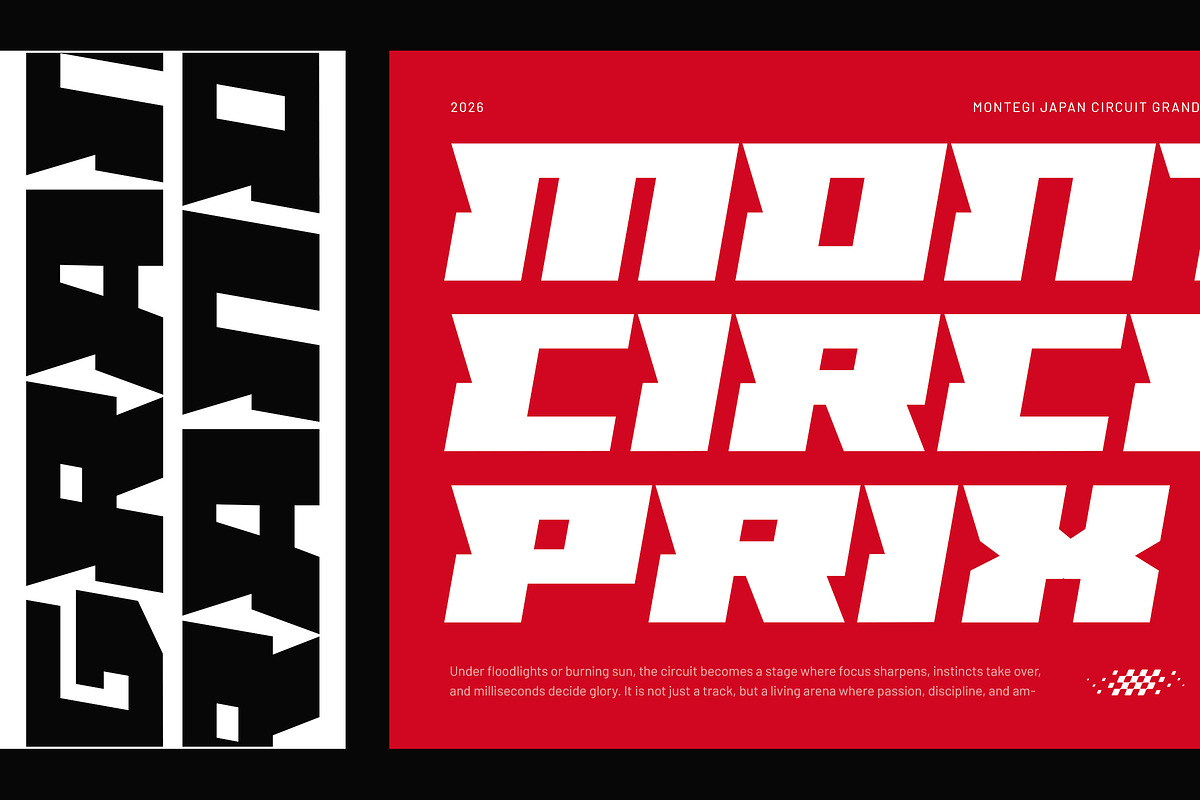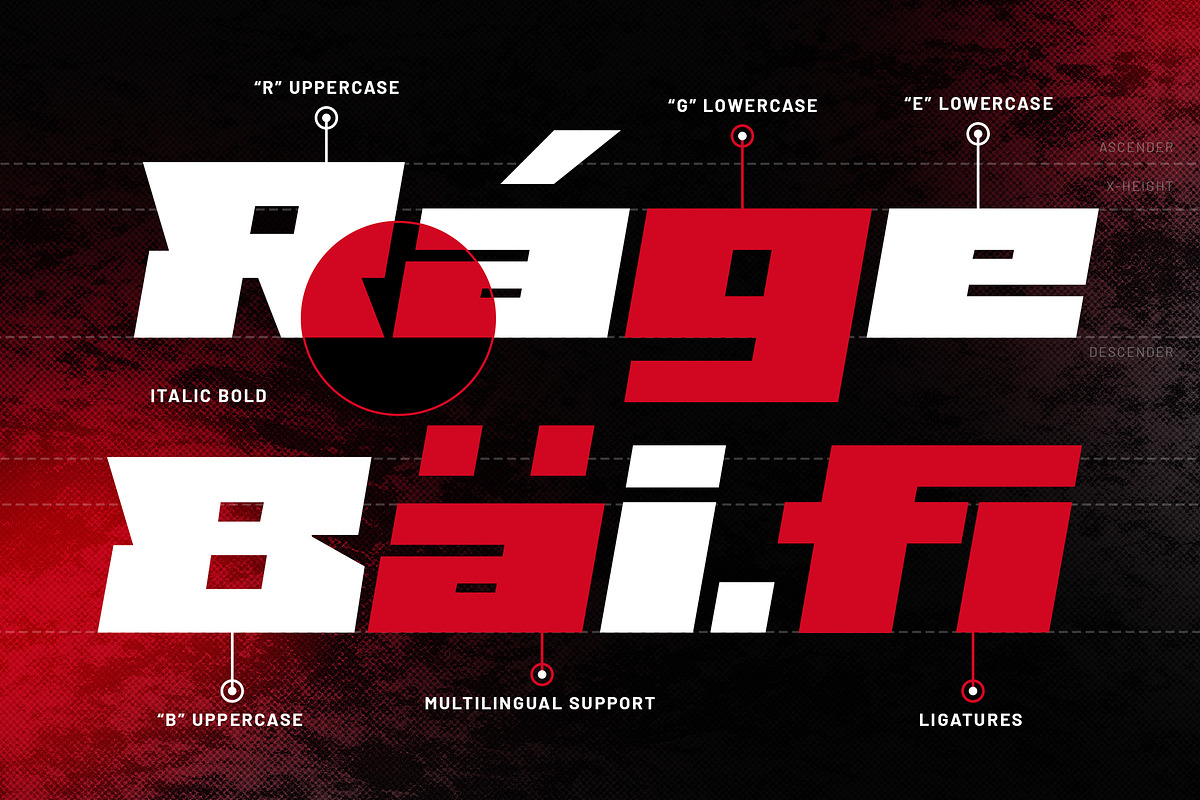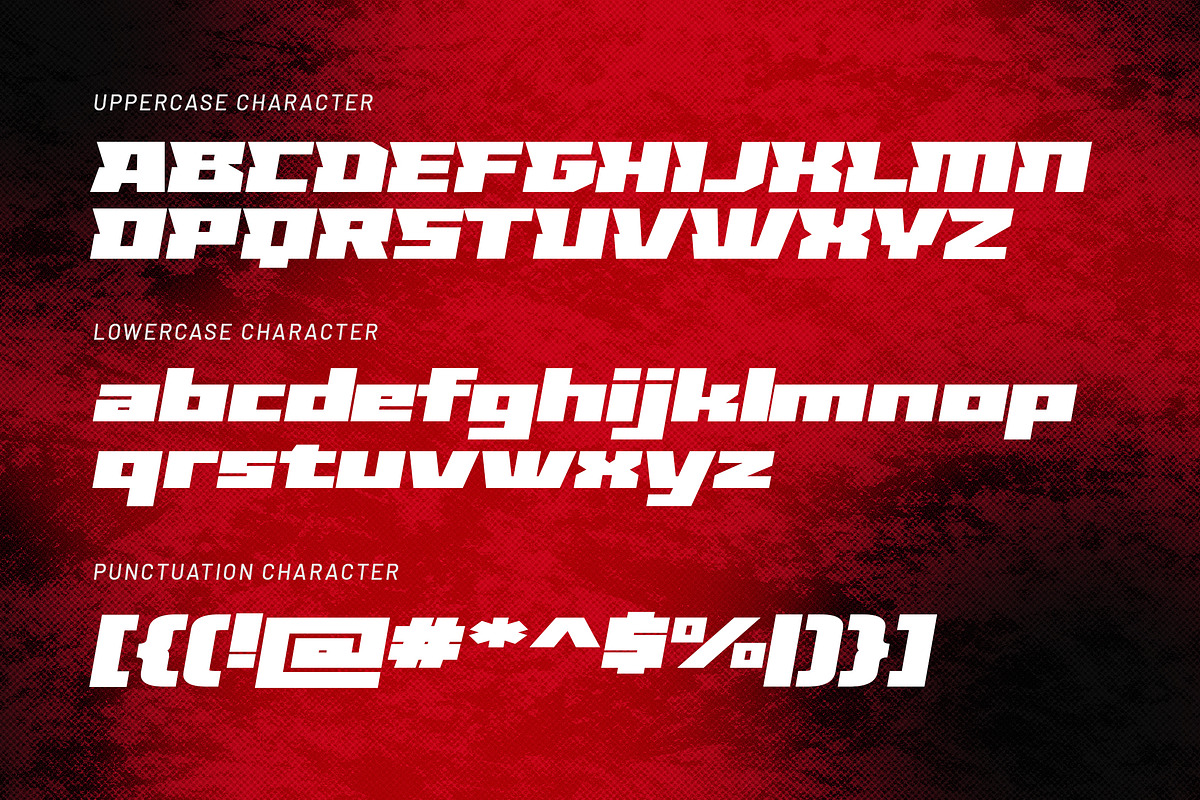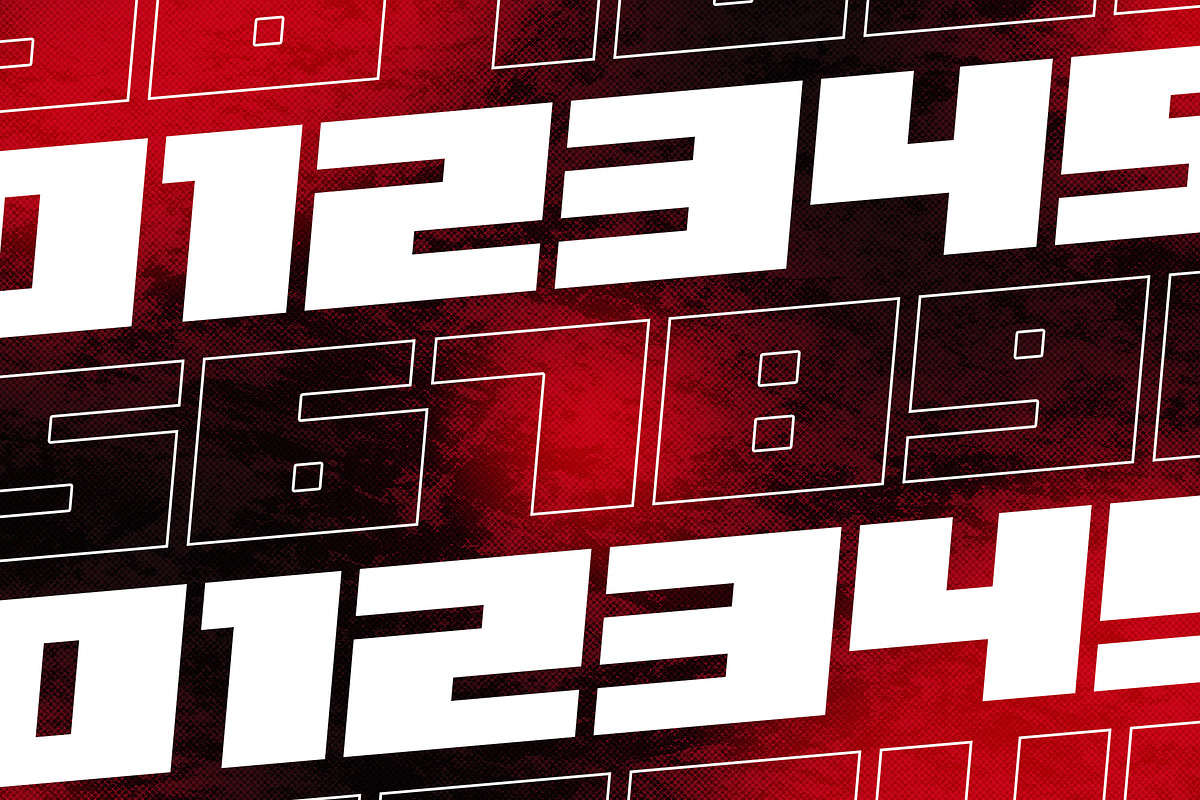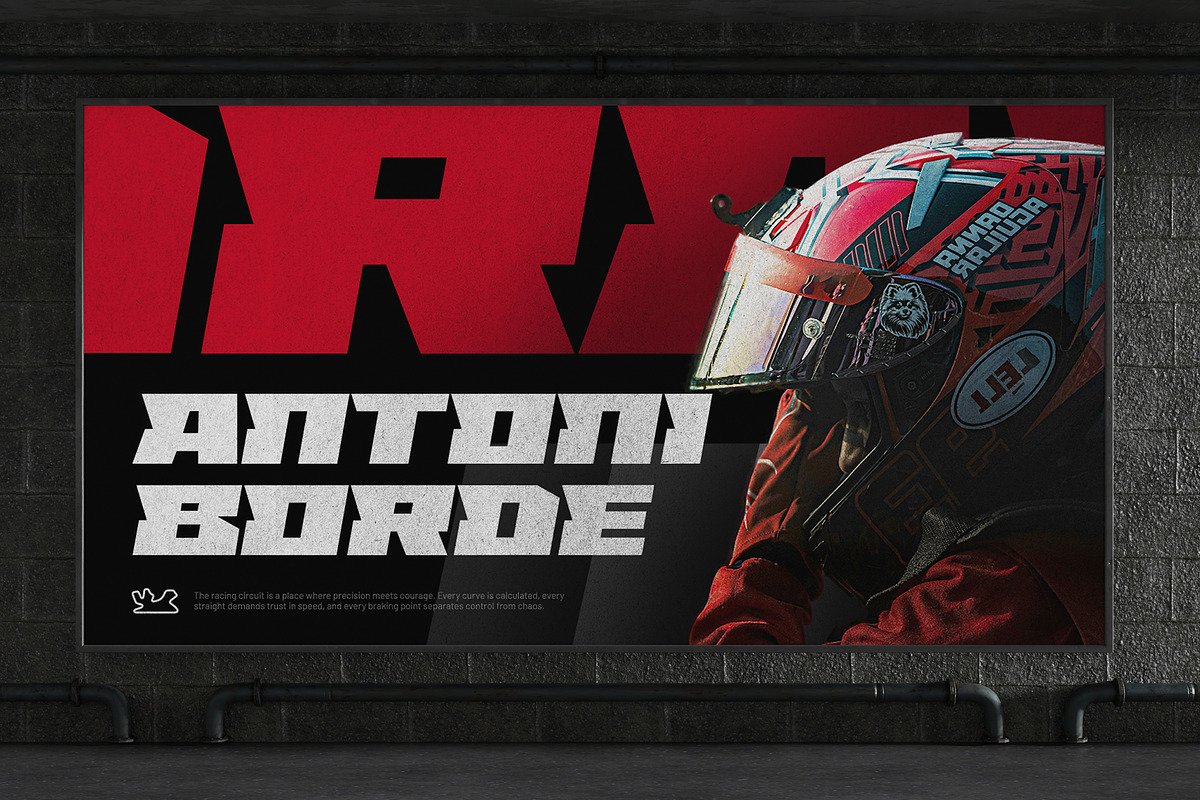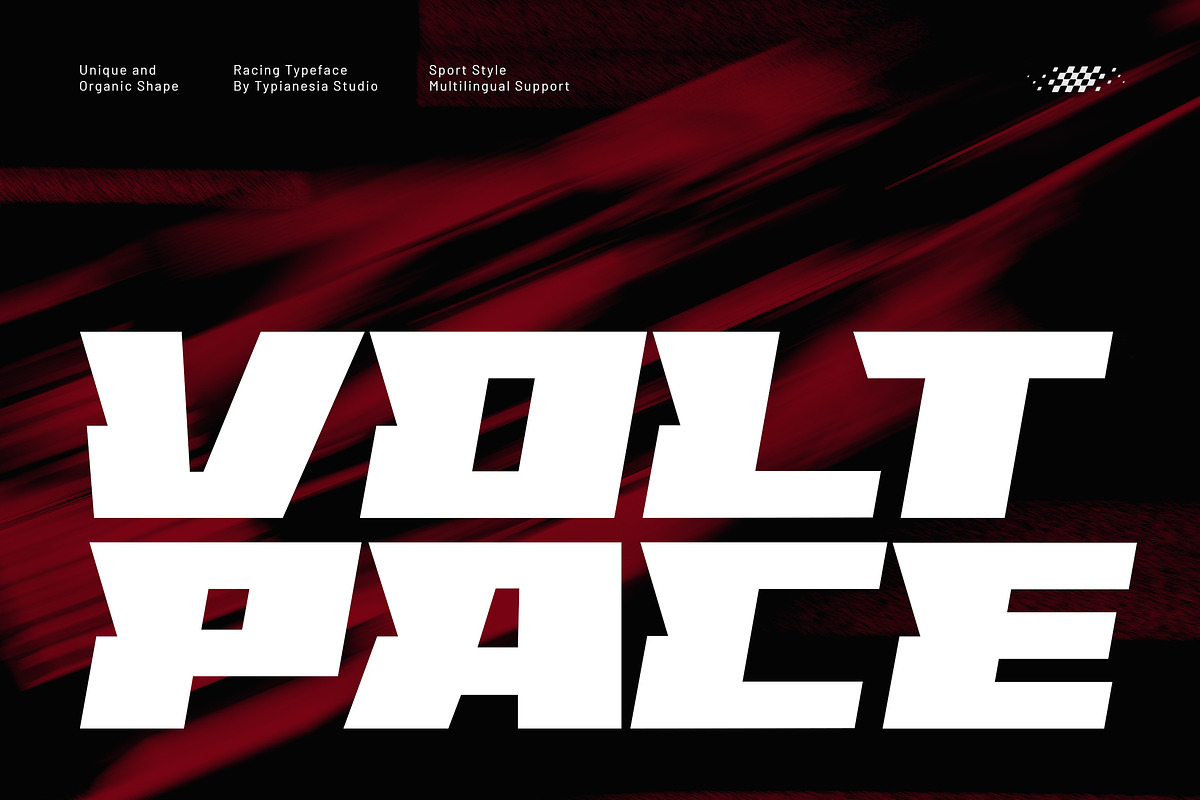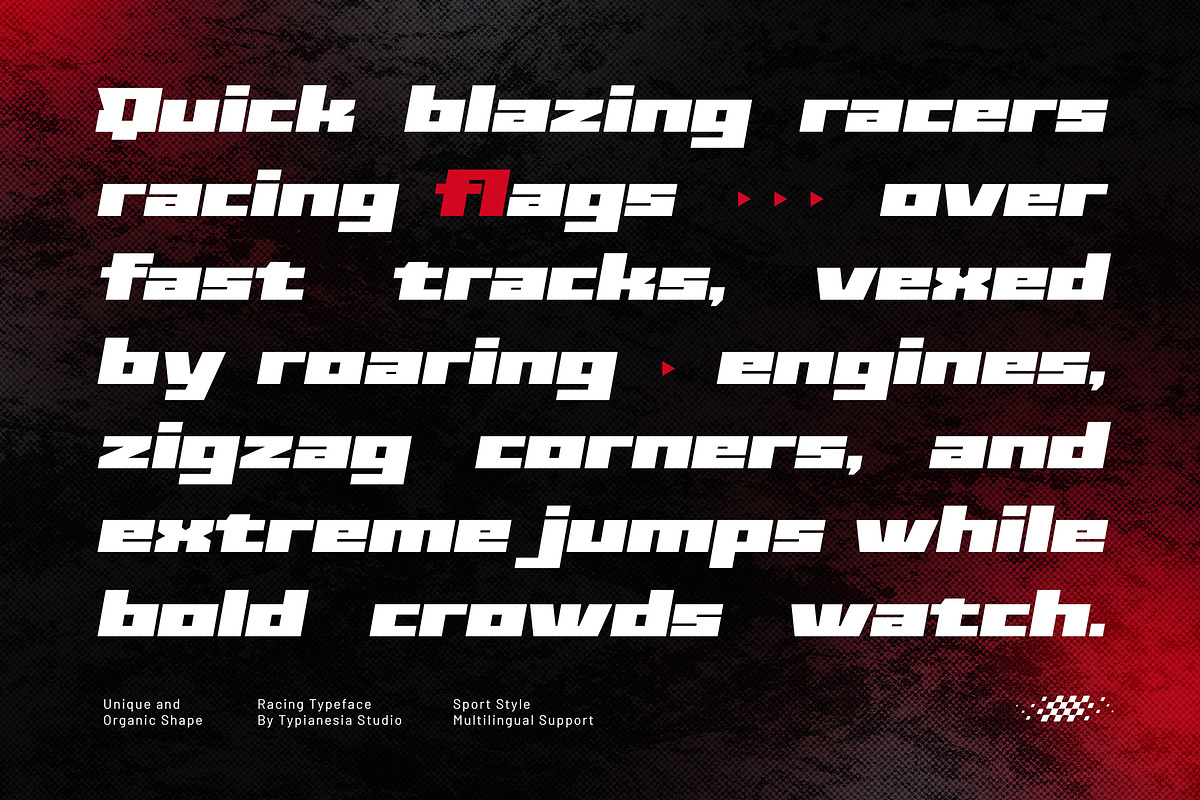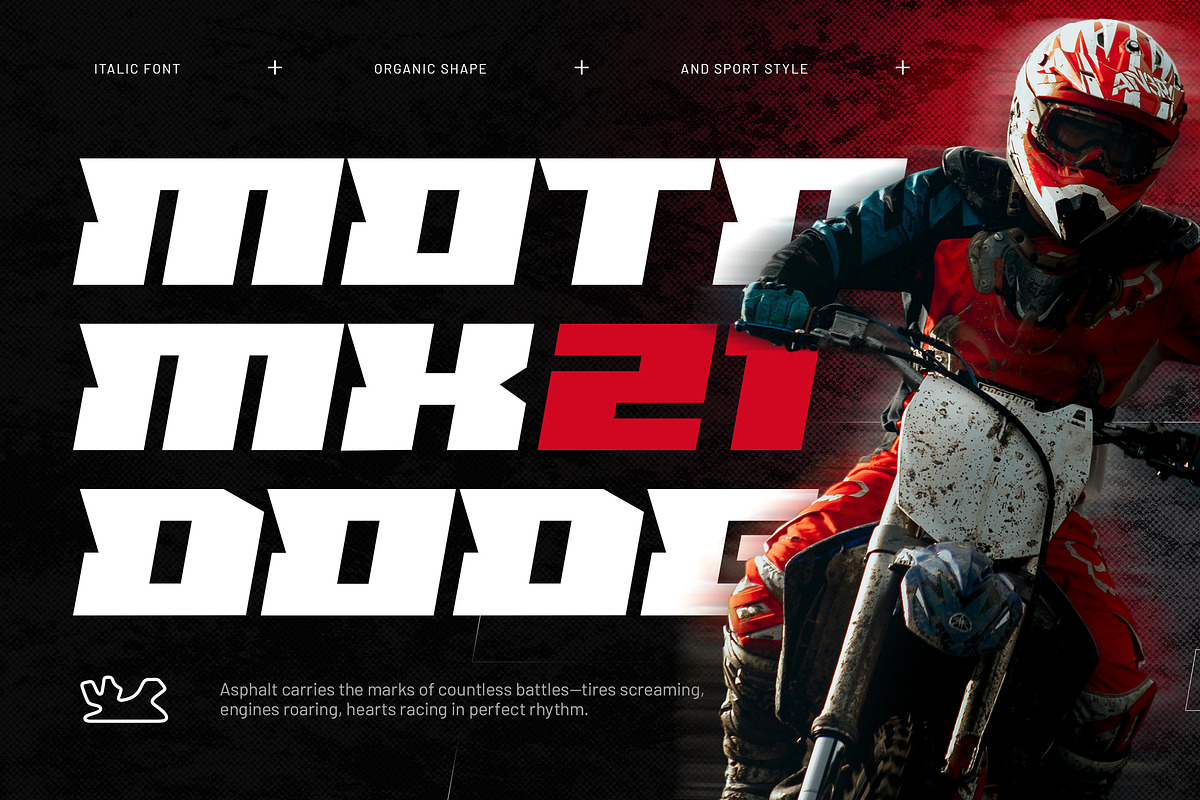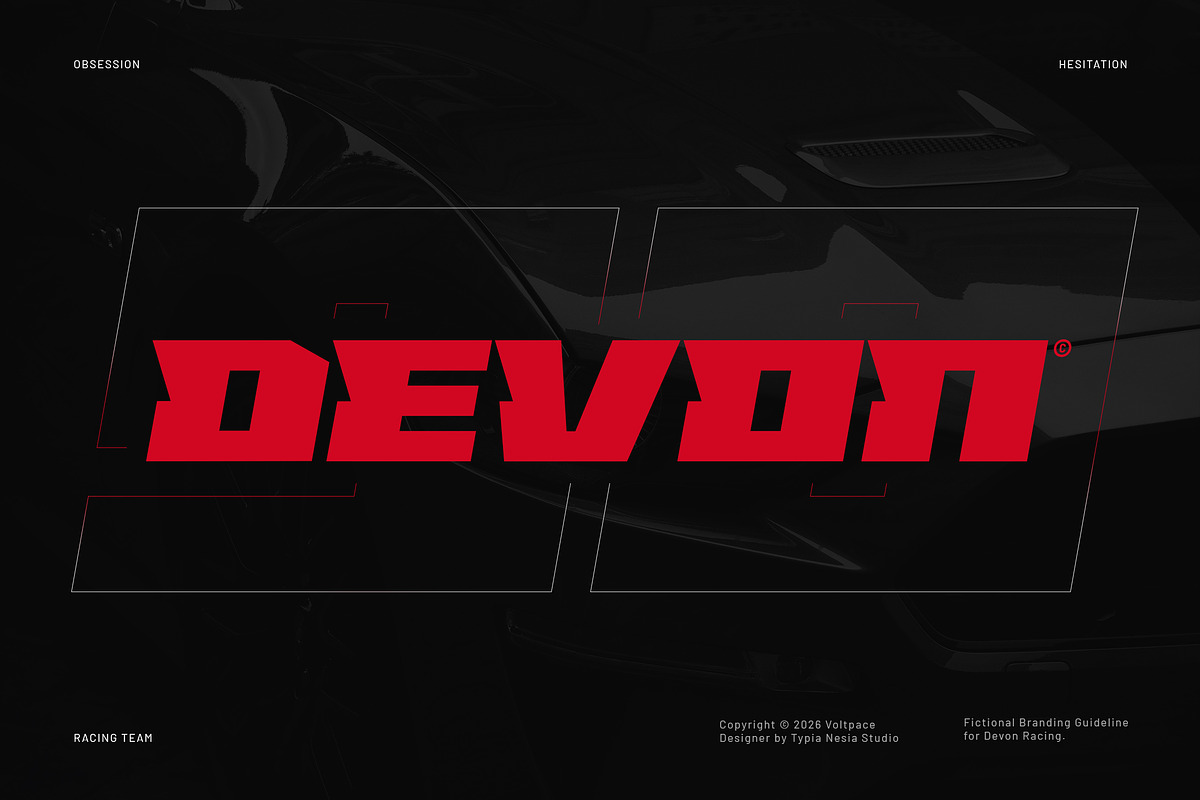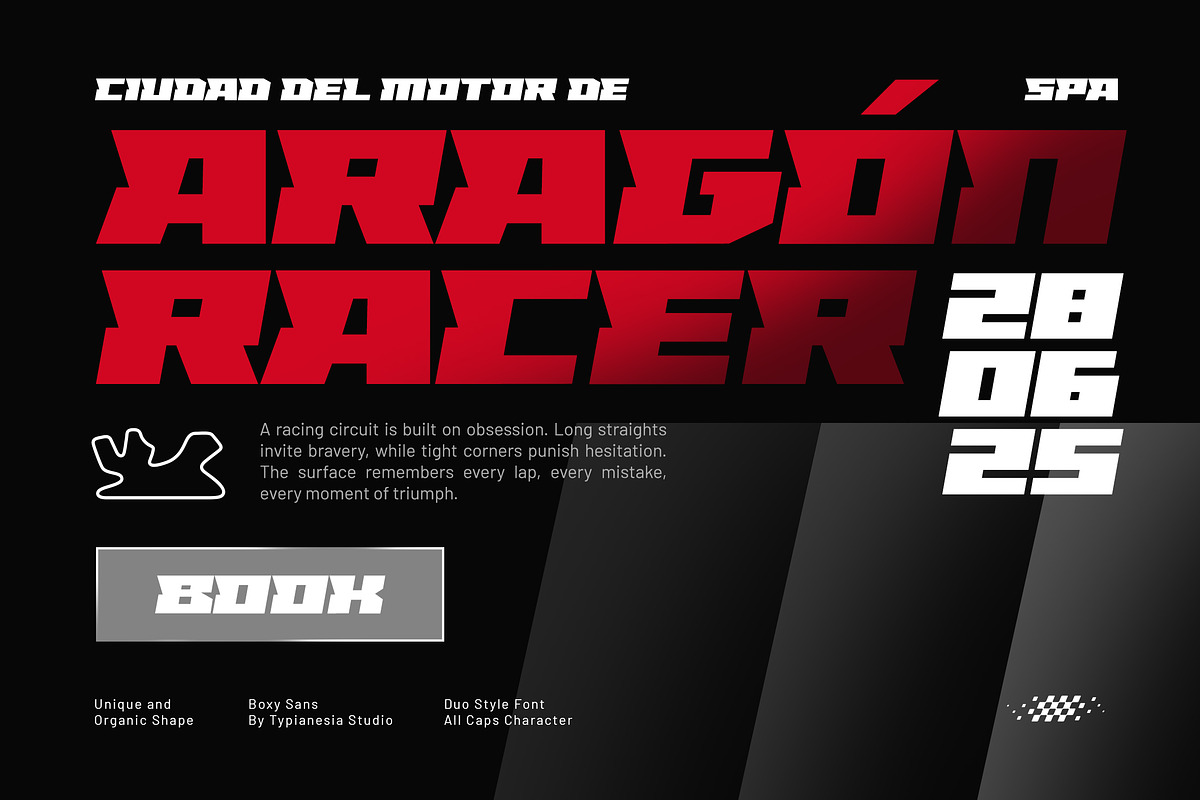
Voltpace - Modern Bold Sport Italic
Voltpace - Modern Bold Sport Italic Racing Font - Futuristic Sport Tech Display Font
Voltpace is a modern bold sport italic racing font built to capture the true spirit of speed, energy, and power. Designed with sharp angles and dynamic italic slants, this futuristic typeface delivers a strong racing character inspired by tech innovation, space aesthetics, and high-performance cars. Its bold and aggressive letterforms make it perfect for sport branding, game titles, automotive logos, racing posters, tech logotype design, esports graphics, high-energy promotional materials, car events, competitive gaming, futuristic branding, and any project that needs a powerful and bold presence. Voltpace ensures maximum impact and a sense of visual acceleration in every design.